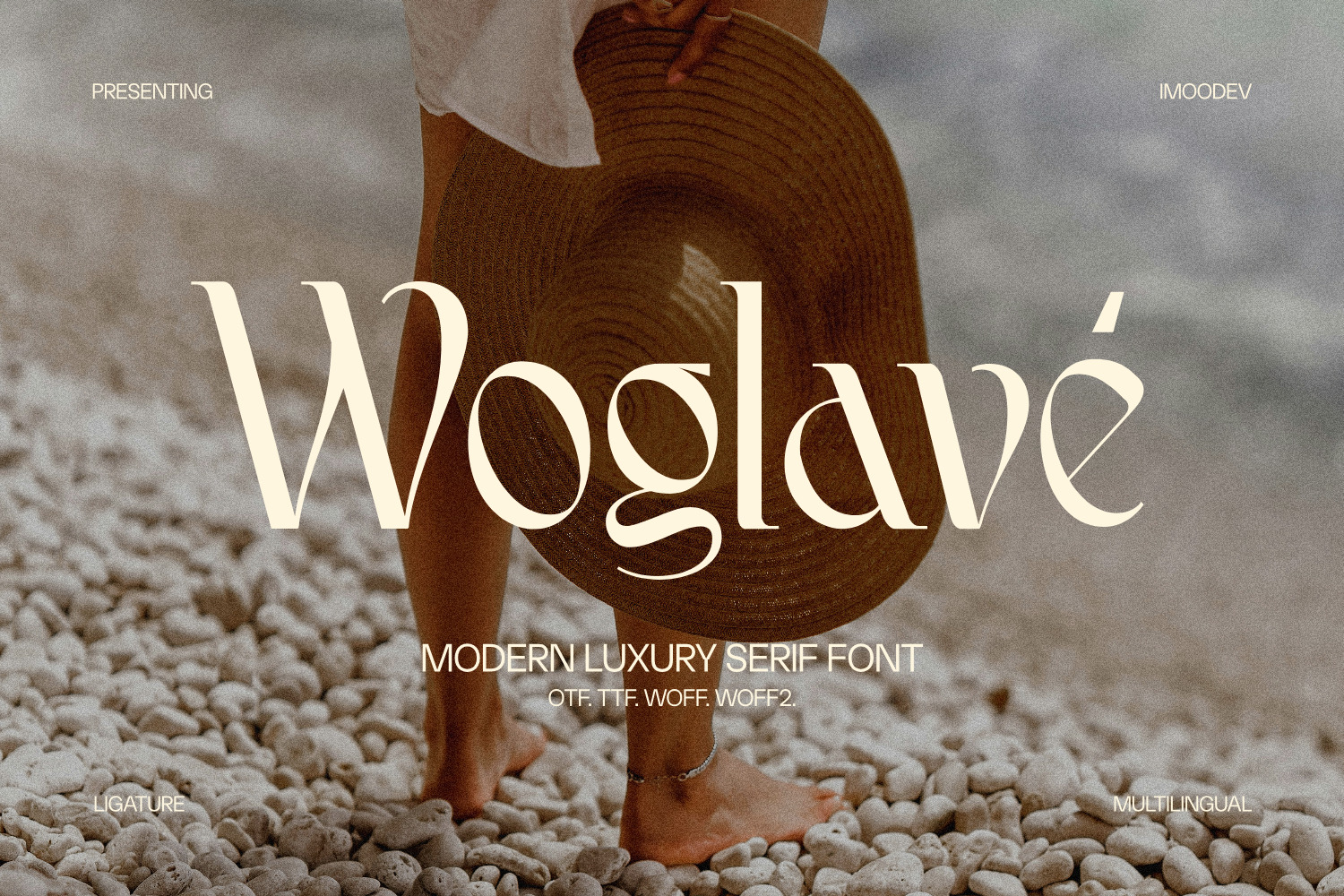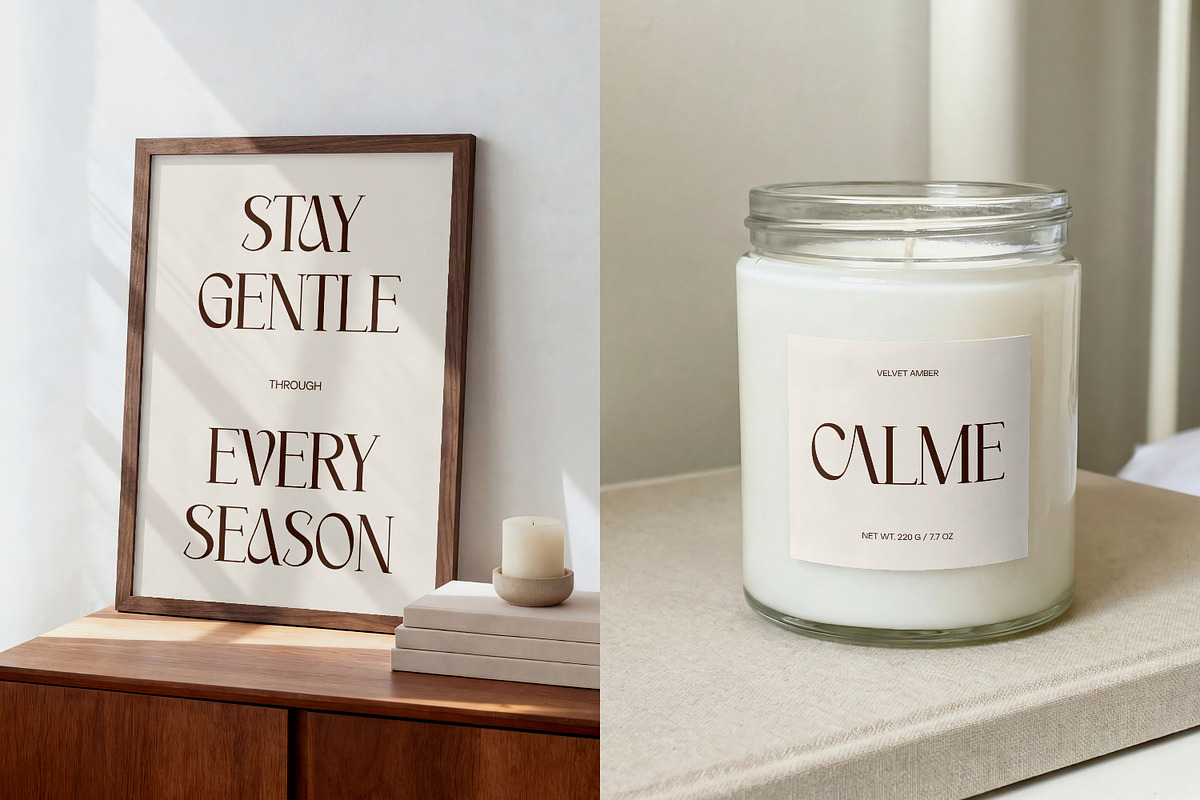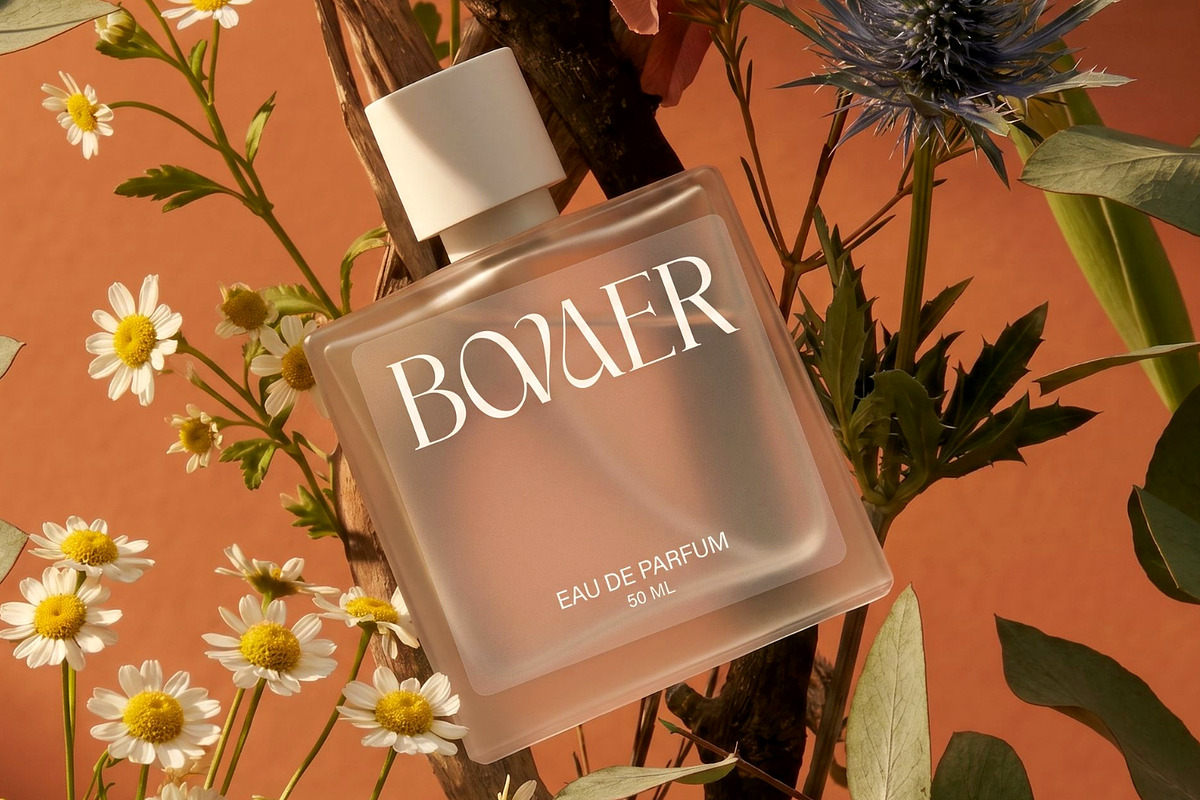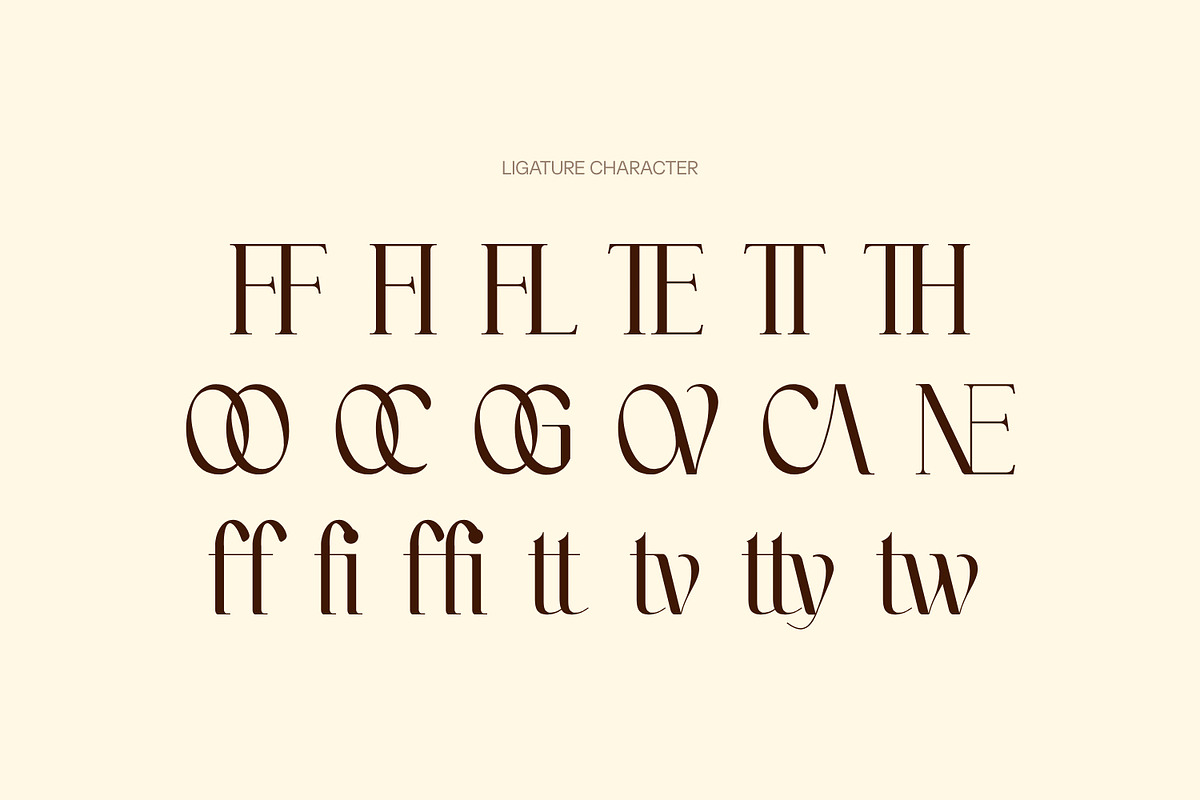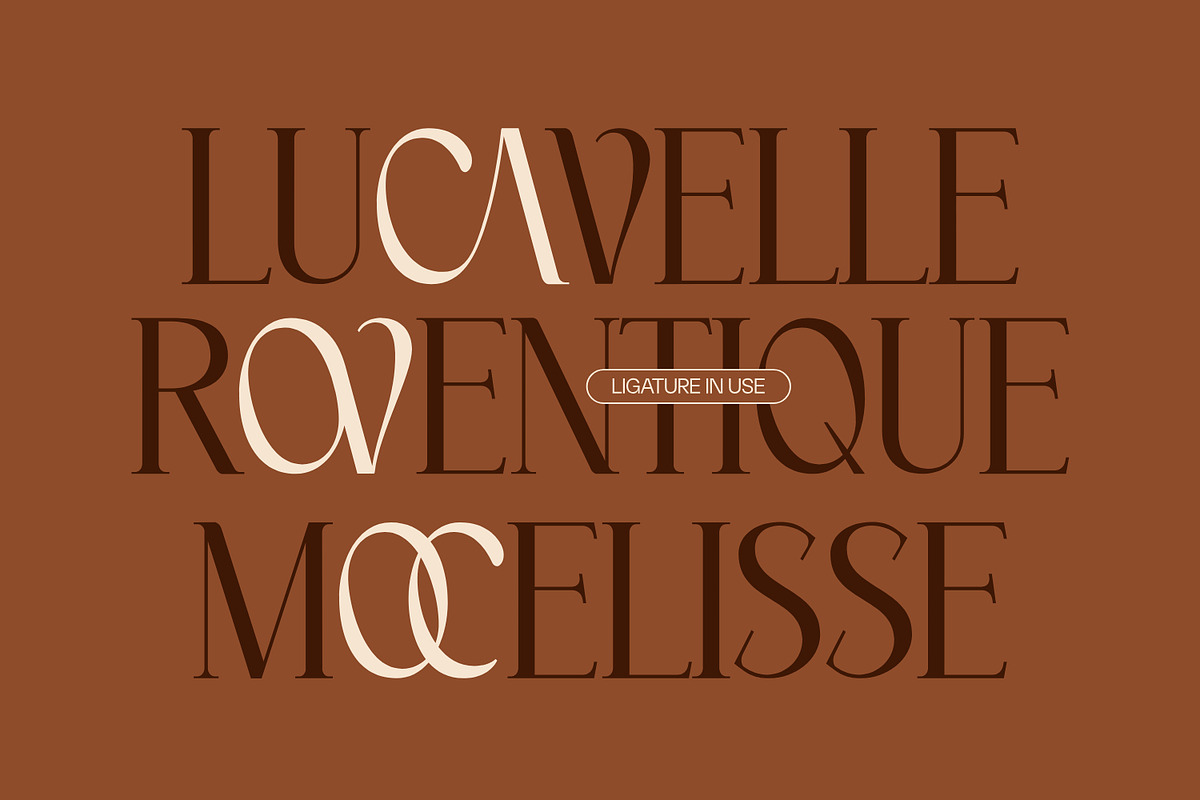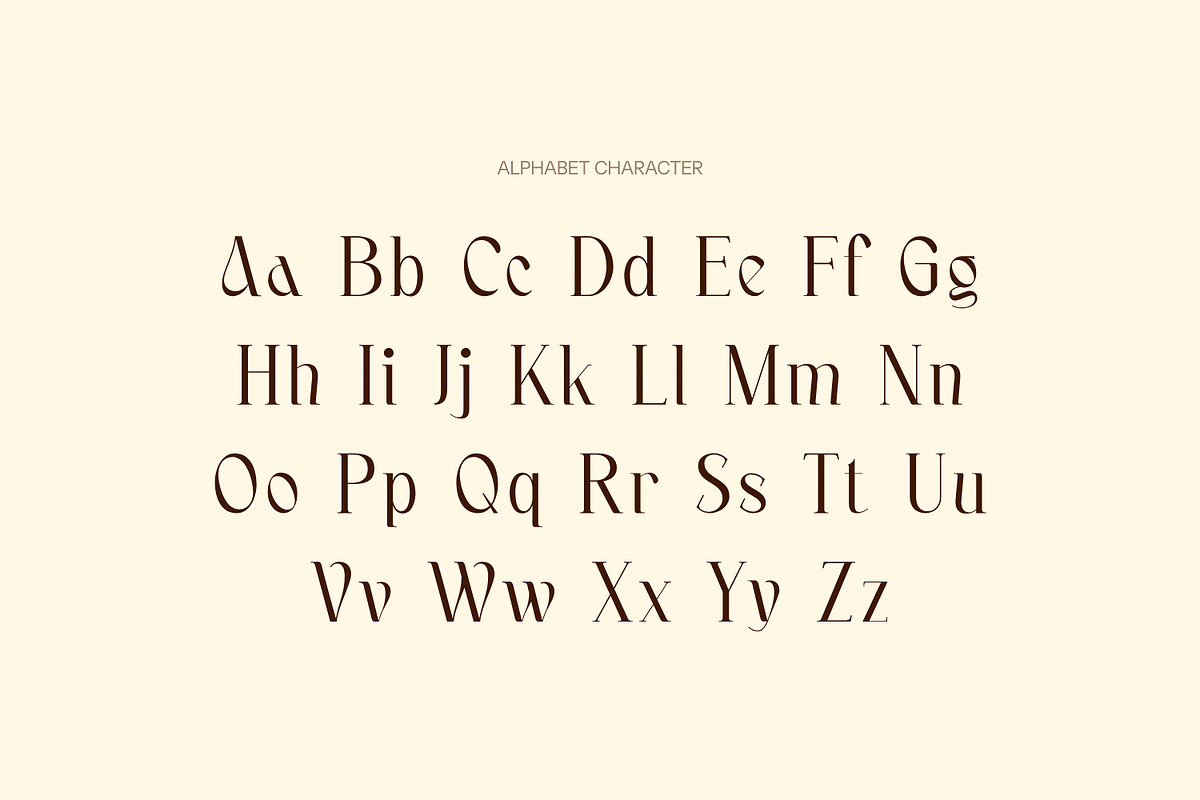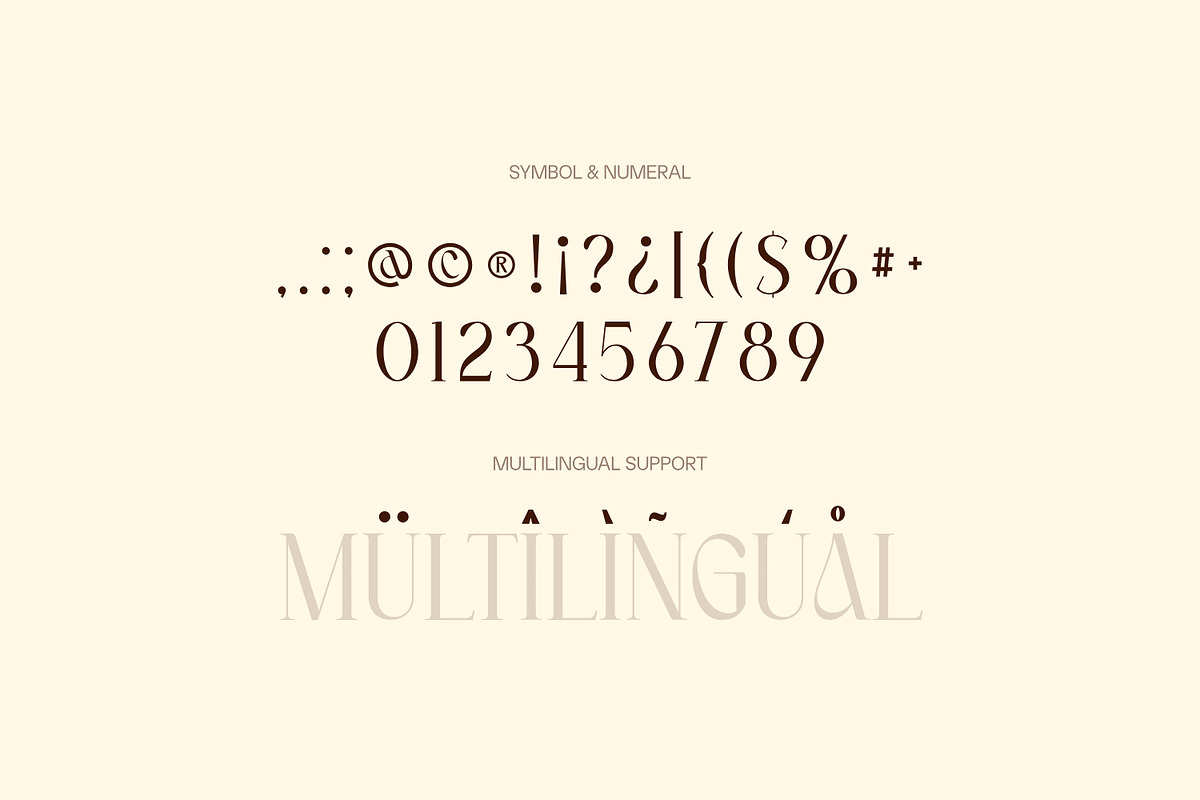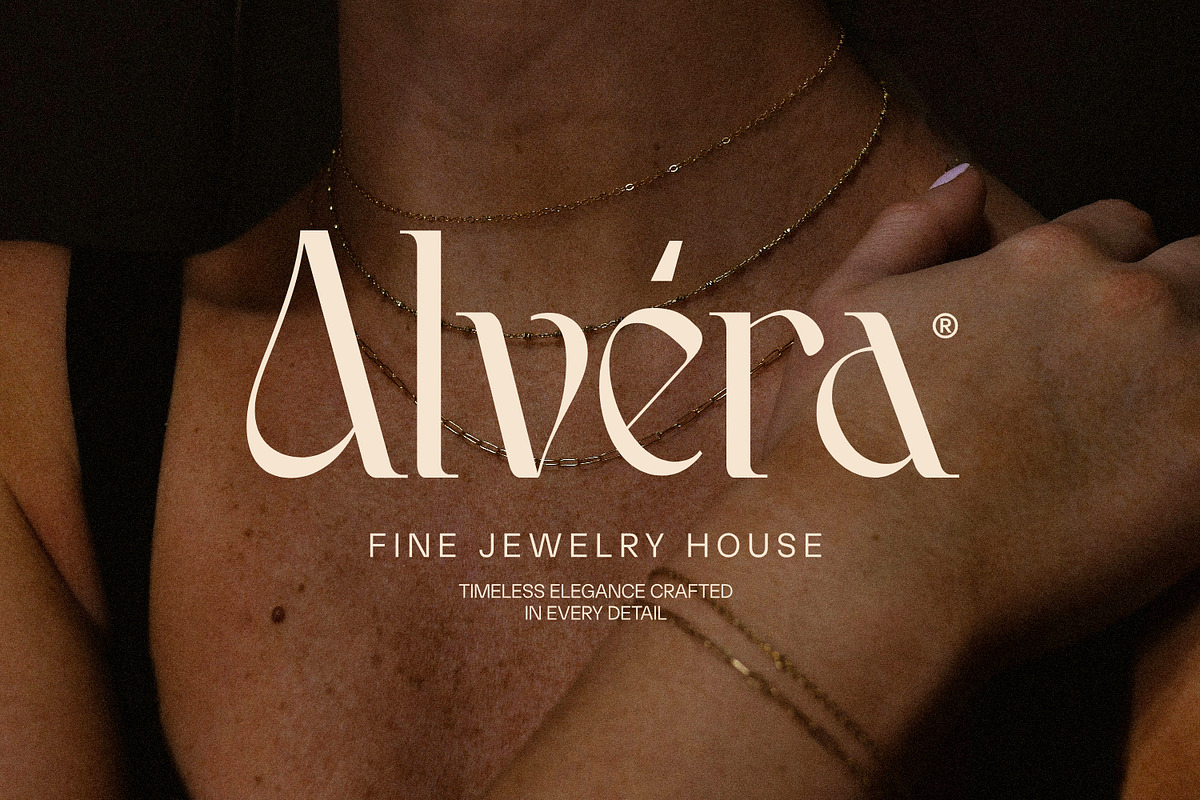
Woglave – Elegant Modern Serif Font
Elevate your creative projects with Woglave, a premium display serif font designed to bring an elite sense of luxury, grace, and artistic flair to your typography. Marked by its dramatic stroke weight variation and fluid, expressive stems, Woglave seamlessly blends timeless editorial elegance with contemporary boutique aesthetics.
Luxury Branding and Logotypes: Instantly creates a memorable identity for fashion houses, fine jewelry, cosmetics, and premium wellness brands.
Editorial Layouts: Ideal for commanding magazine headlines, sophisticated book covers, and large scale display typography.
Chic Packaging: Adds a polished, elite touch to candle labels, perfume bottles, and premium product boxes.
Event Stationery: Elevates wedding invitations, RSVP cards, and upscale gala menus.